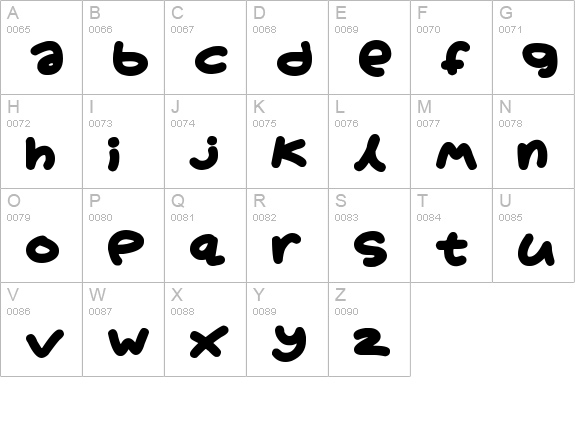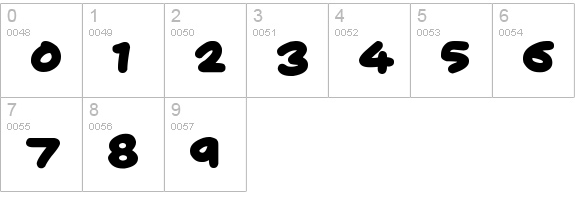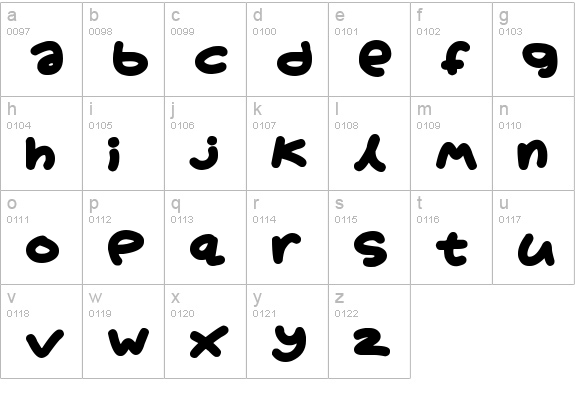
Boardgamers Font Details
Boardgamers is a free for personal use font in the Script > Handwritten category, designed by Darrell Flood. It has been downloaded 24 times and is available for Windows, Mac and Linux.
Boardgamers font is a whimsical and playful typeface perfect for any board game enthusiast. With its bold and round letterforms, this font captures the fun and excitement of game night. Whether you're designing packaging for a new board game or creating promotional materials for a game night event, Boardgamers font will add a touch of charm and creativity to your project.